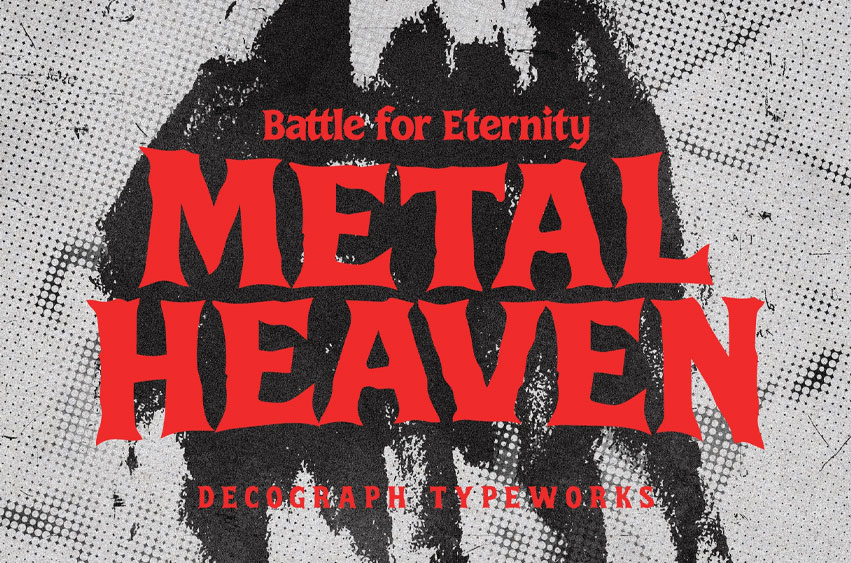
Metal Heaven Font Heavy Metal Font is a powerful display typeface inspired by classic metal band aesthetics and aggressive gothic lettering. Its sharp edges, dramatic serifs, and heavy weight create a dark and commanding presence that instantly grabs attention. The bold structure gives every word a loud and rebellious attitude.
Perfect for music-related visuals and intense creative projects, this font is designed to dominate headlines and statement typography. Whether used for album artwork, band logos, posters, or merchandise, it delivers raw energy and unmistakable metal spirit.
Best Used For: Band Logos Album Covers Music Posters Merchandise Design Festival Graphics Gaming Titles YouTube Thumbnails Headline Typography